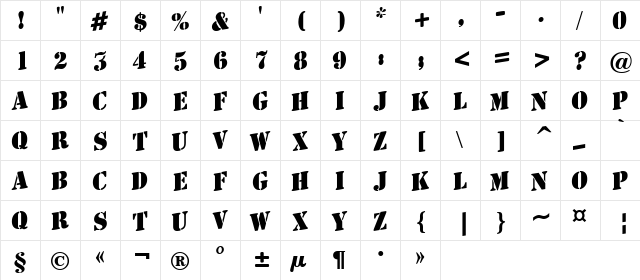
a_StamperUp Bold
Design Context for a_StamperUp Typeface
a_StamperUp has the rough pragmatism of spray-painted stencil signage, adding a raw, street-level authenticity to designs. Its bold stroke weight gives it real presence on the page.
Ideal for industrial branding, streetwear, military-adjacent aesthetics, and urban signage projects.
Pro Tip: Pair a_StamperUp with raw, utilitarian design elements — exposed concrete textures, flat colour, and minimal ornamentation suit it well.